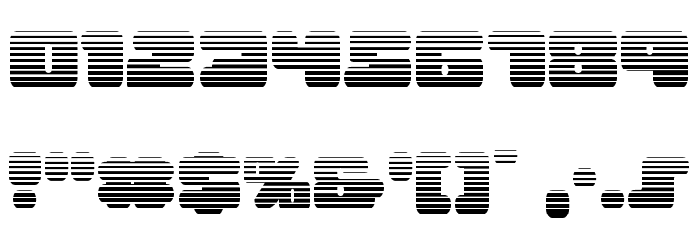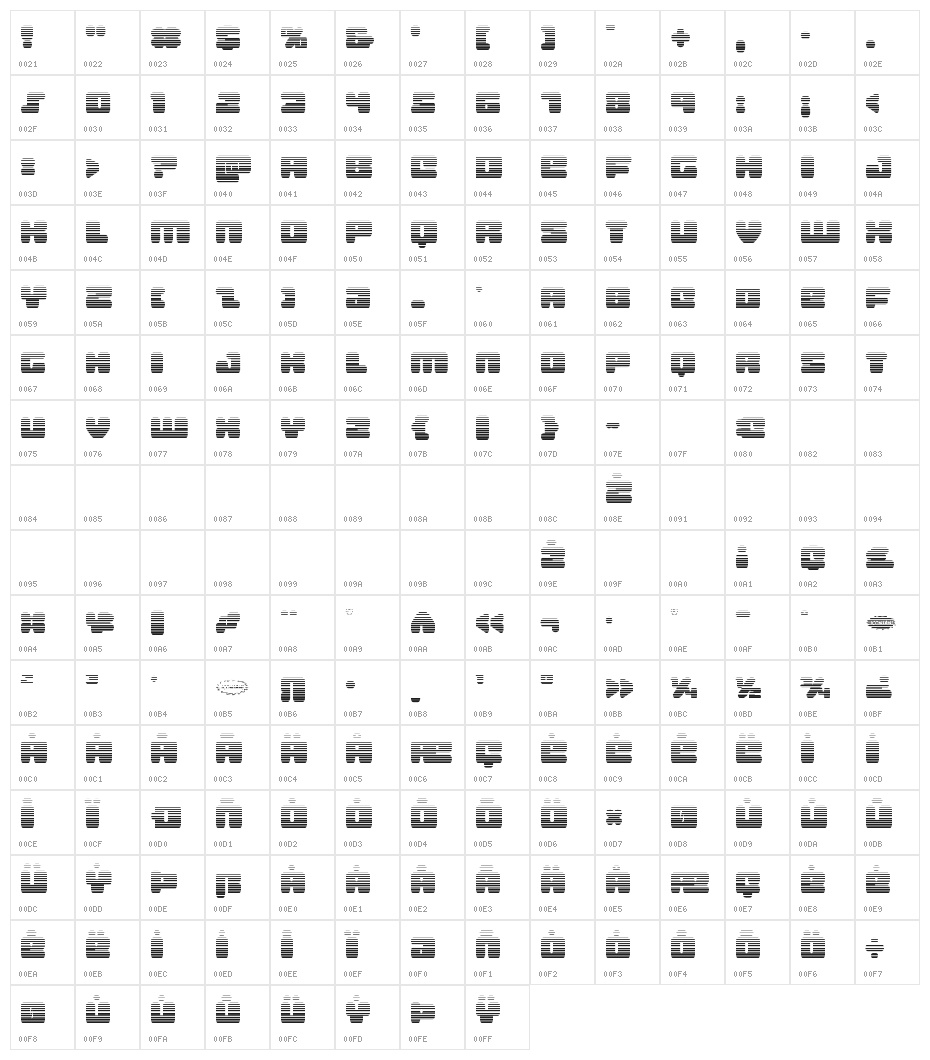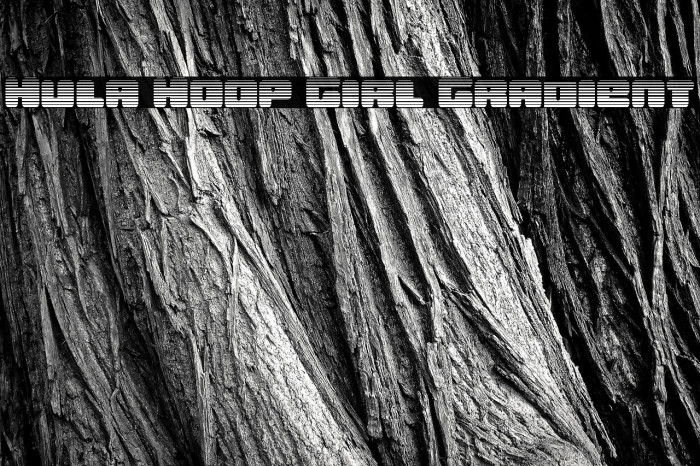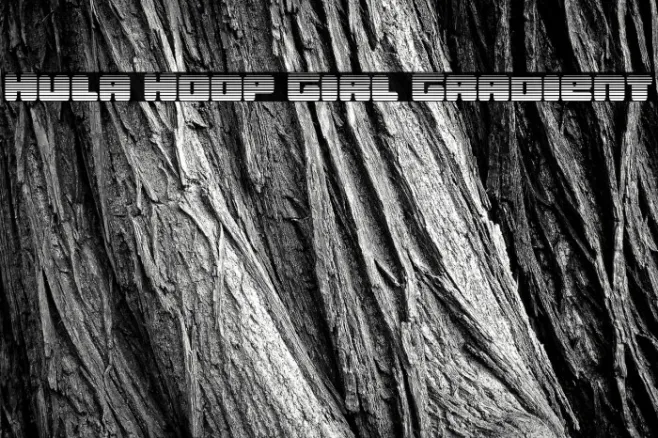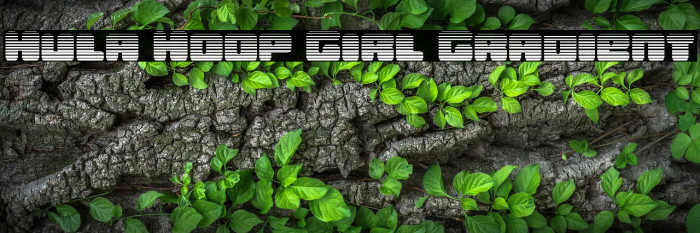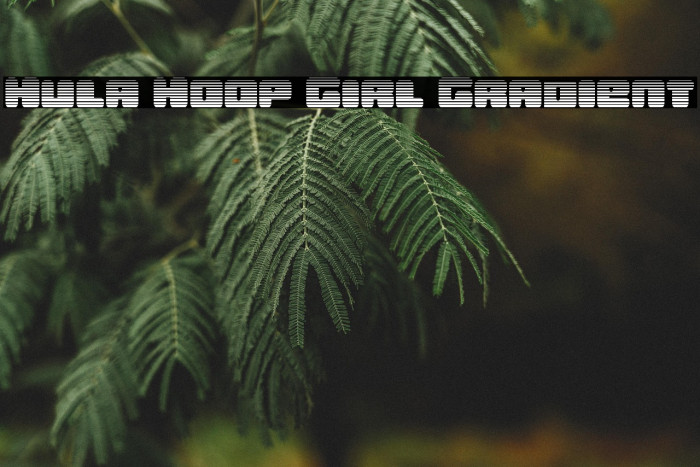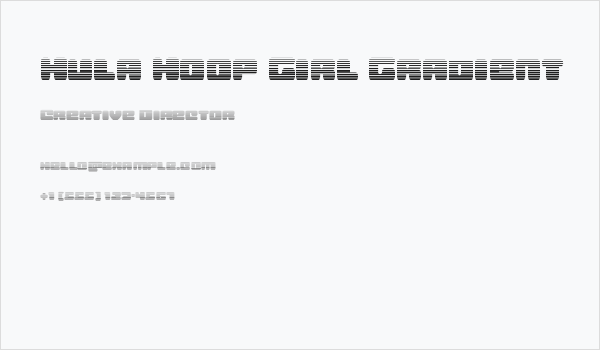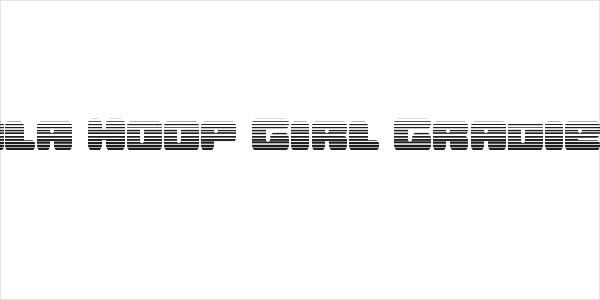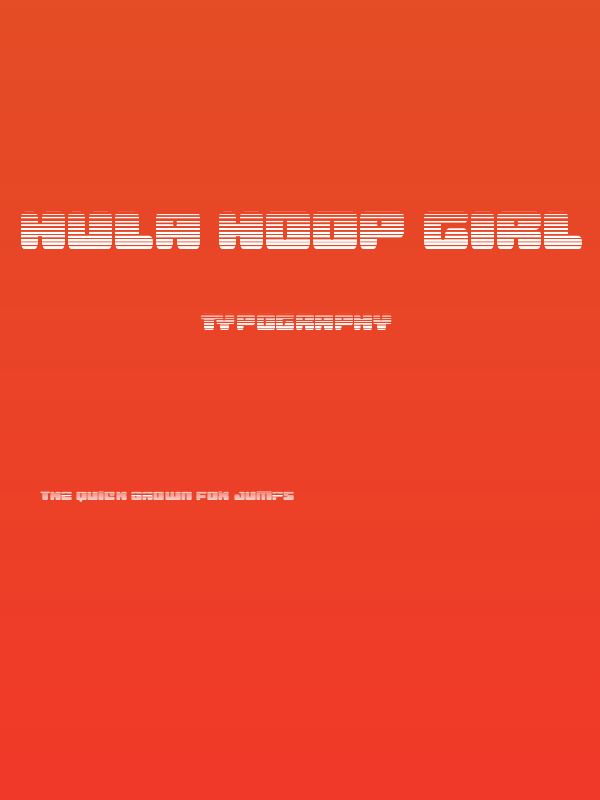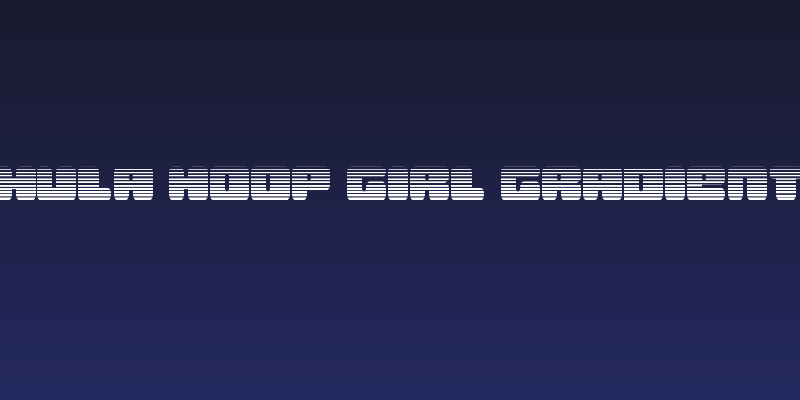
Hula Hoop Girl Gradient Font
Hula Hoop Girl Gradient Description
This font features a bold and striking design with a unique striped pattern running horizontally across each character. The letters are uppercase and have a blocky, geometric shape that gives them a modern and futuristic appearance. The consistent use of horizontal lines creates a sense of movement and energy, making it ideal for eye-catching designs. The font maintains uniformity in its structure, with each character having a similar width and height, contributing to a cohesive look. The numbers and special characters follow the same design principles, ensuring versatility across different uses.
| Proposed Projects | Ideal for branding, posters, and digital media where a modern and dynamic look is desired. |